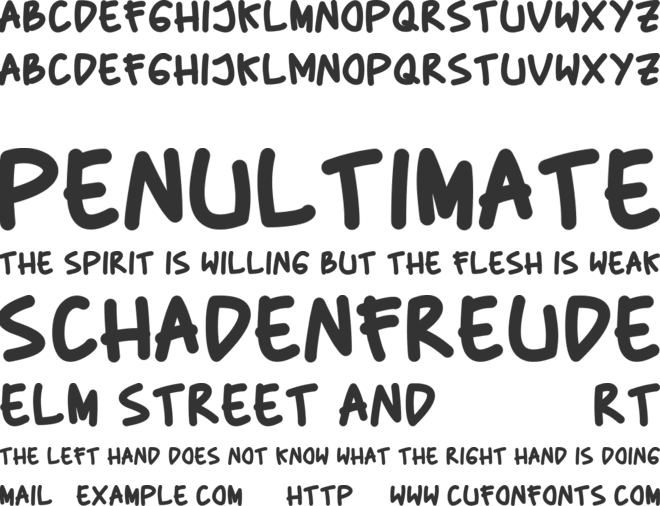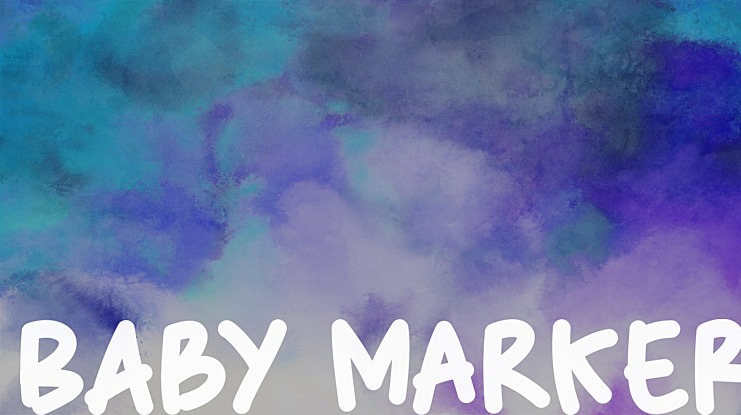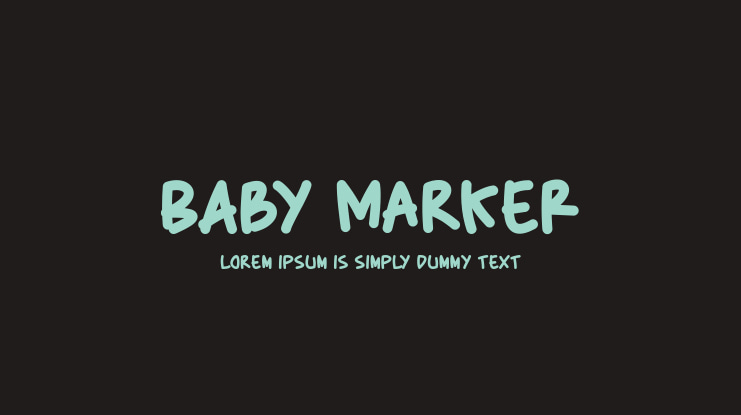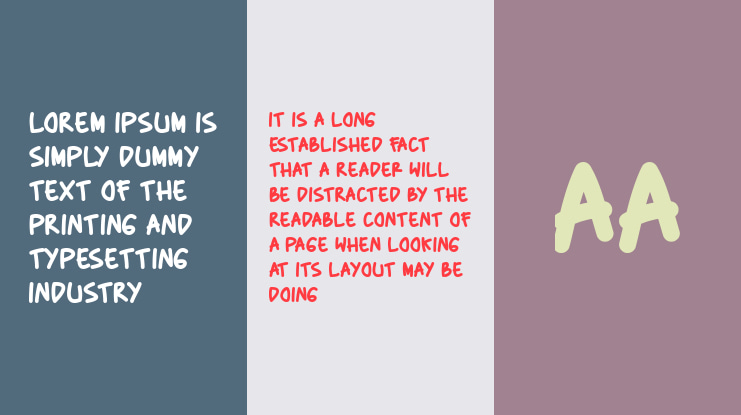
Baby Marker Font
Baby Marker is an adorable handwritten font. This new, bold font in a handwritten style, has lots of alternative ligatures to make it really look like your own handwriting. Perfect for your creative projects this season.